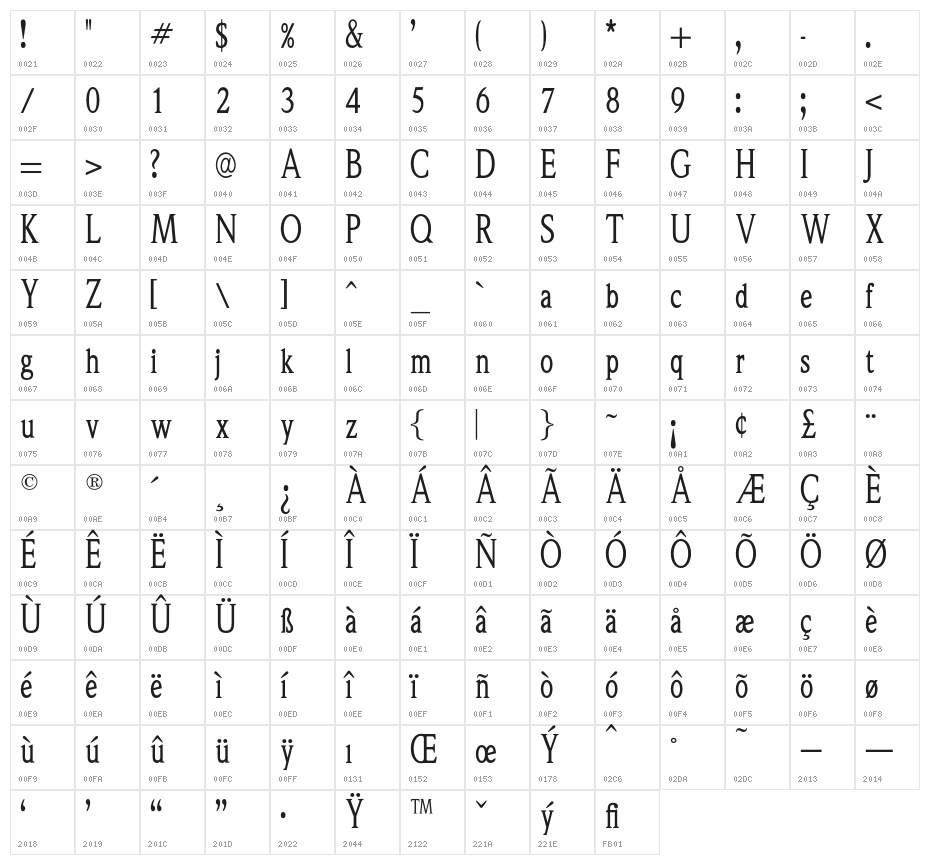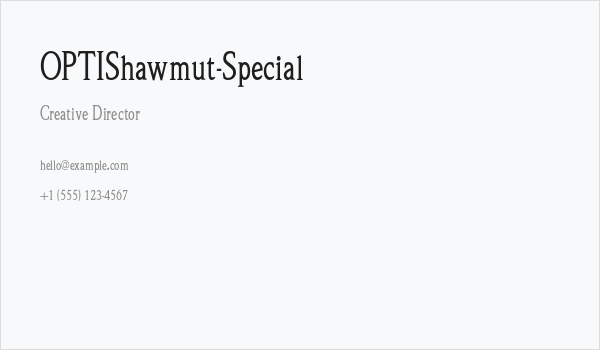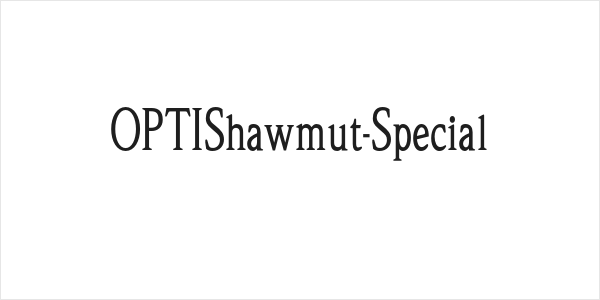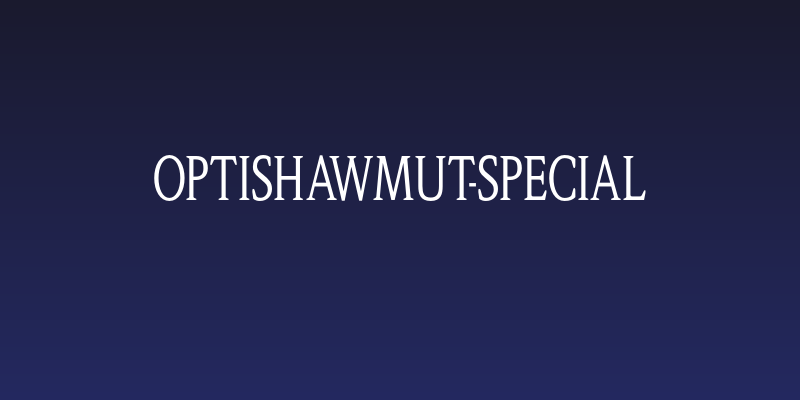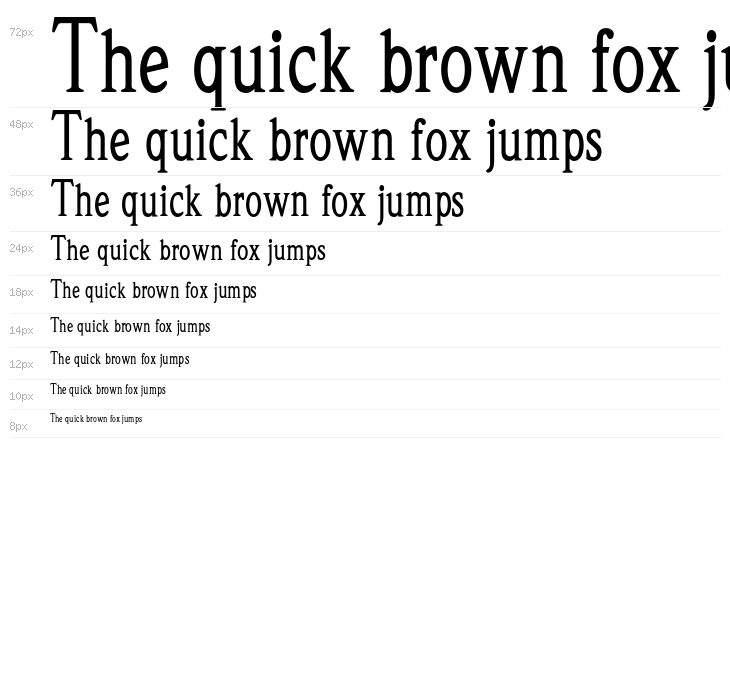
OPTIShawmut-Special Font
OPTIShawmut-Special Description
This typeface features a classic serif design with a refined and elegant appearance. The characters exhibit a traditional structure with moderate stroke contrast, making it suitable for formal and professional settings. The uppercase letters are tall and commanding, while the lowercase letters maintain a consistent and harmonious flow. The numerals are clear and legible, and the special characters are well-integrated into the overall design. This font's balanced proportions and timeless style make it versatile for various applications.
| Proposed Projects | Ideal for editorial design, book covers, formal invitations, and corporate branding. |